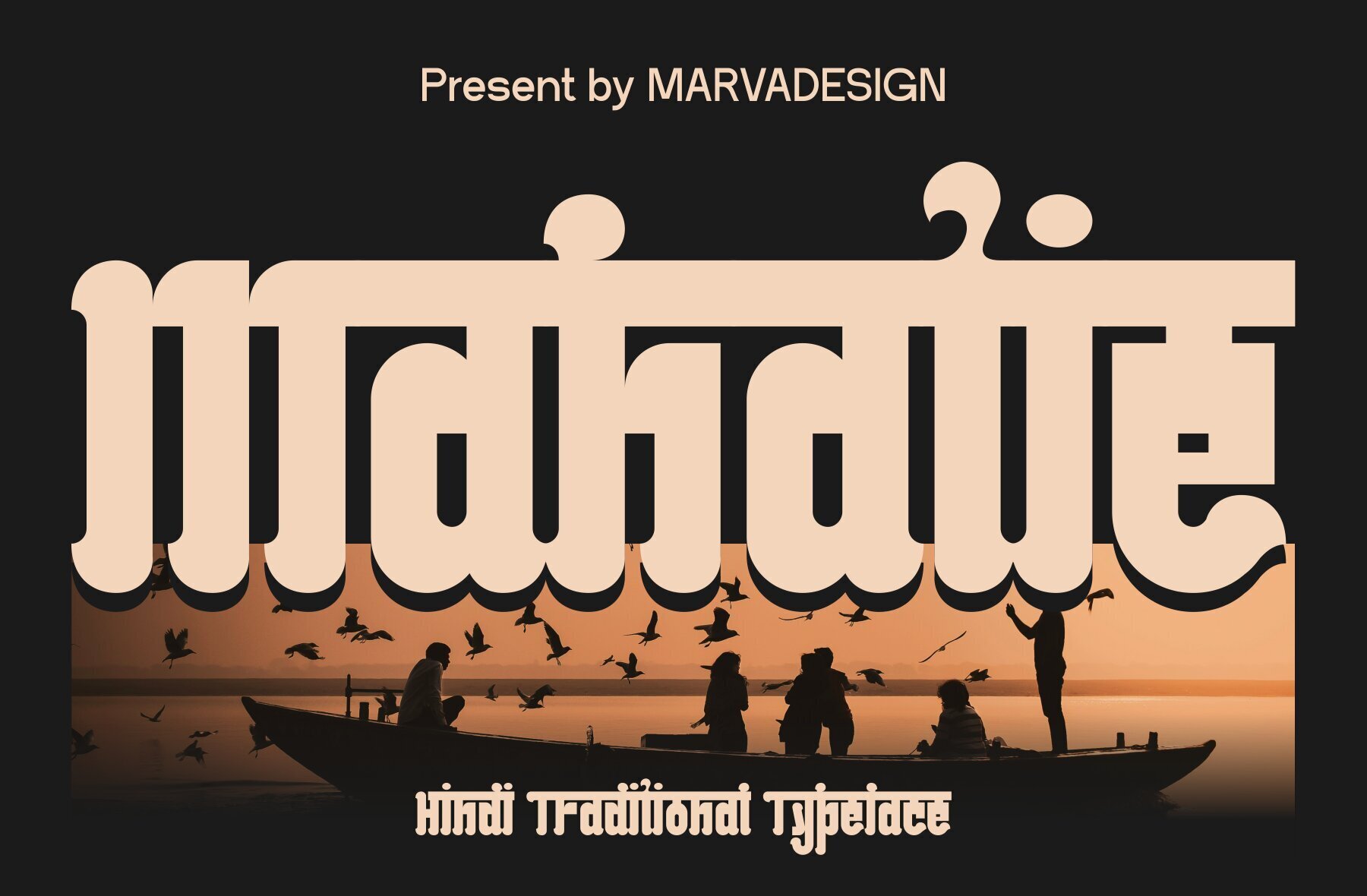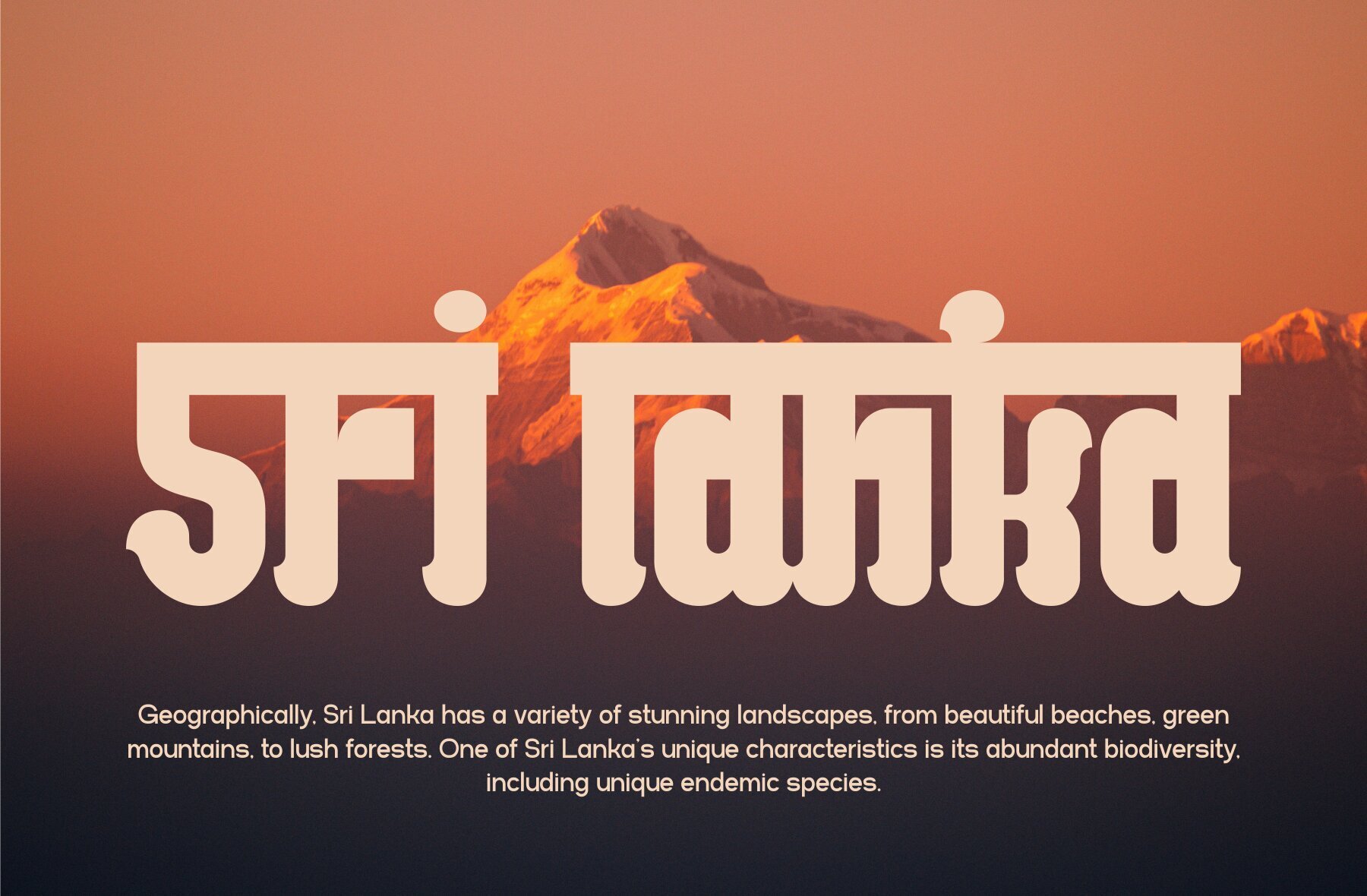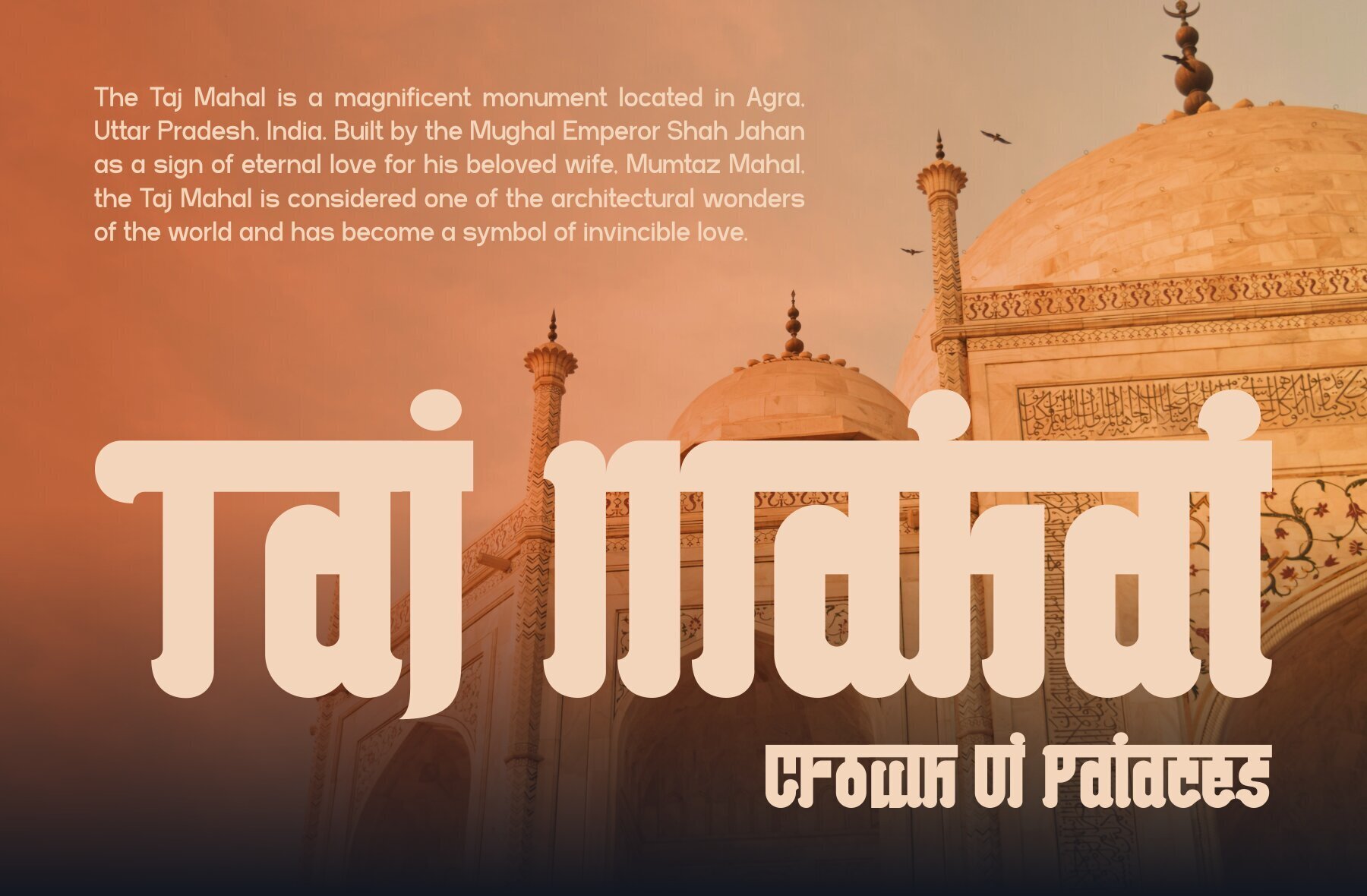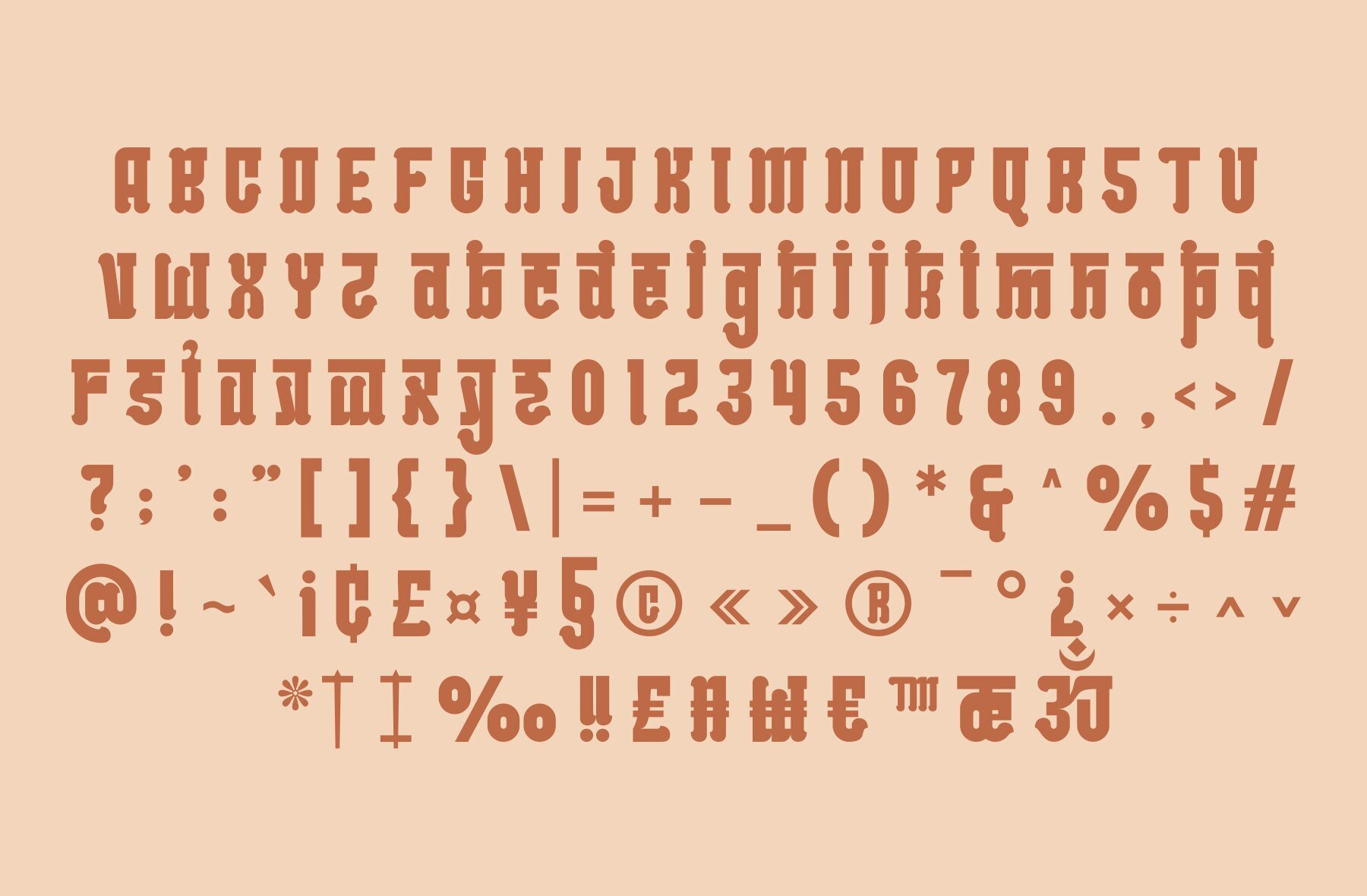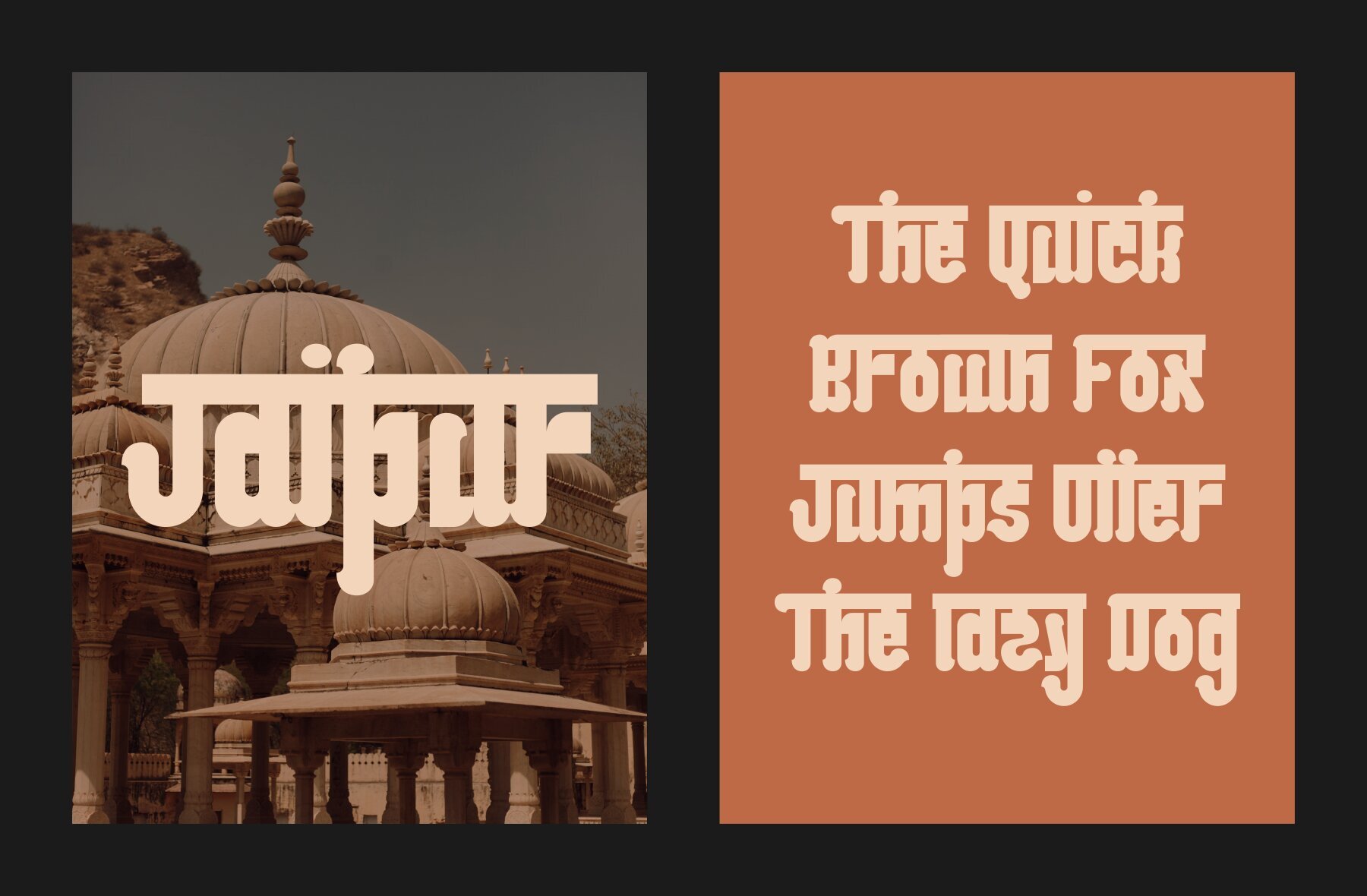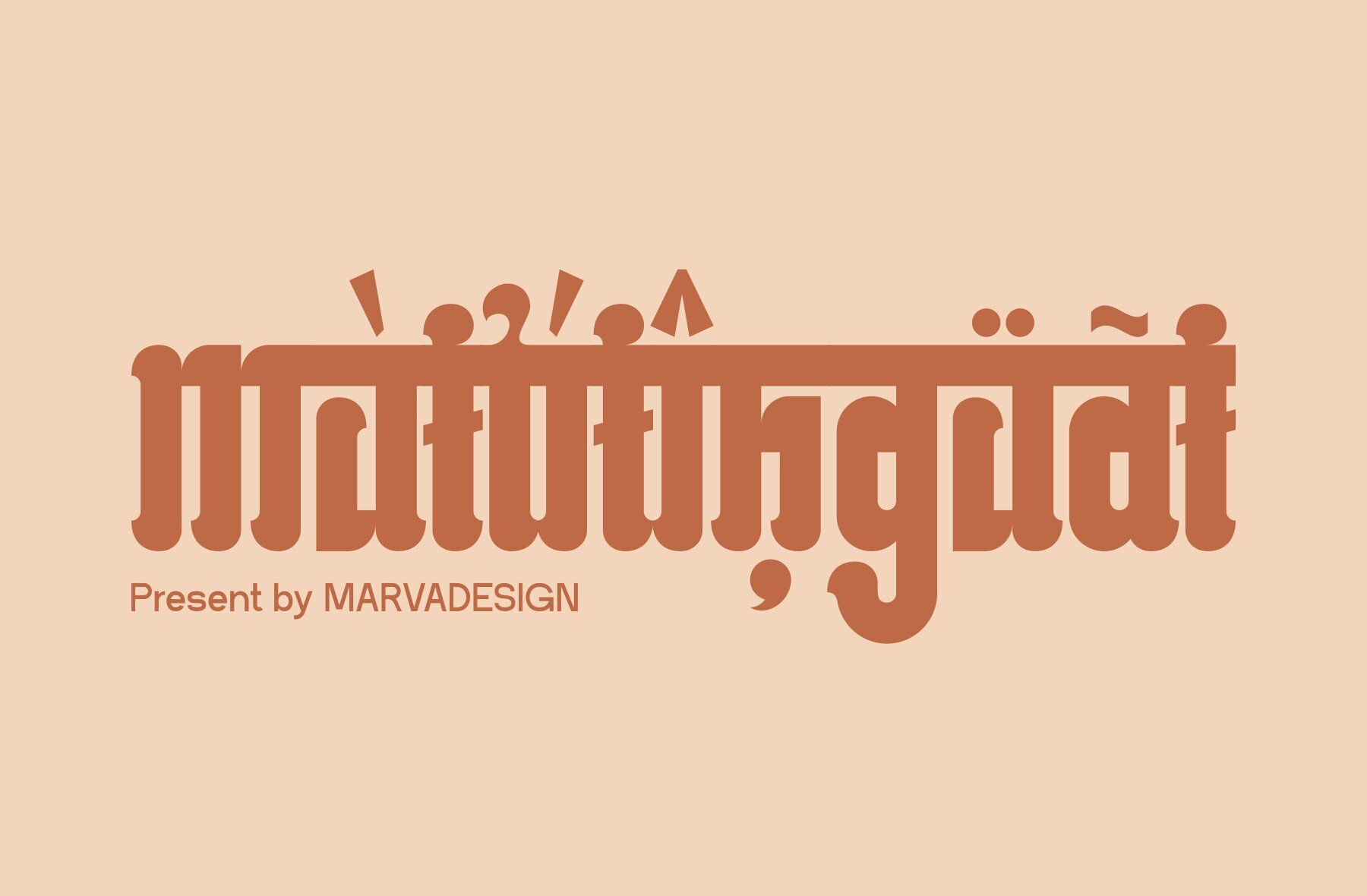
Mahatie Font
Mahatie Regular
Mahatie is a distinctive font that combines the elegance of classic Indian scripts with the clean lines of modern typography. Featuring ornate details inspired by traditional Indian calligraphy, Mahatie offers both boldness and precision. Its strokes are well-defined and bold, ensuring readability even at smaller sizes, while intricate embellishments reflect the cultural richness associated with Indian motifs.Mahatie: A Fusion of Indian Tradition and Modern Bold Design
Features of Mahatie